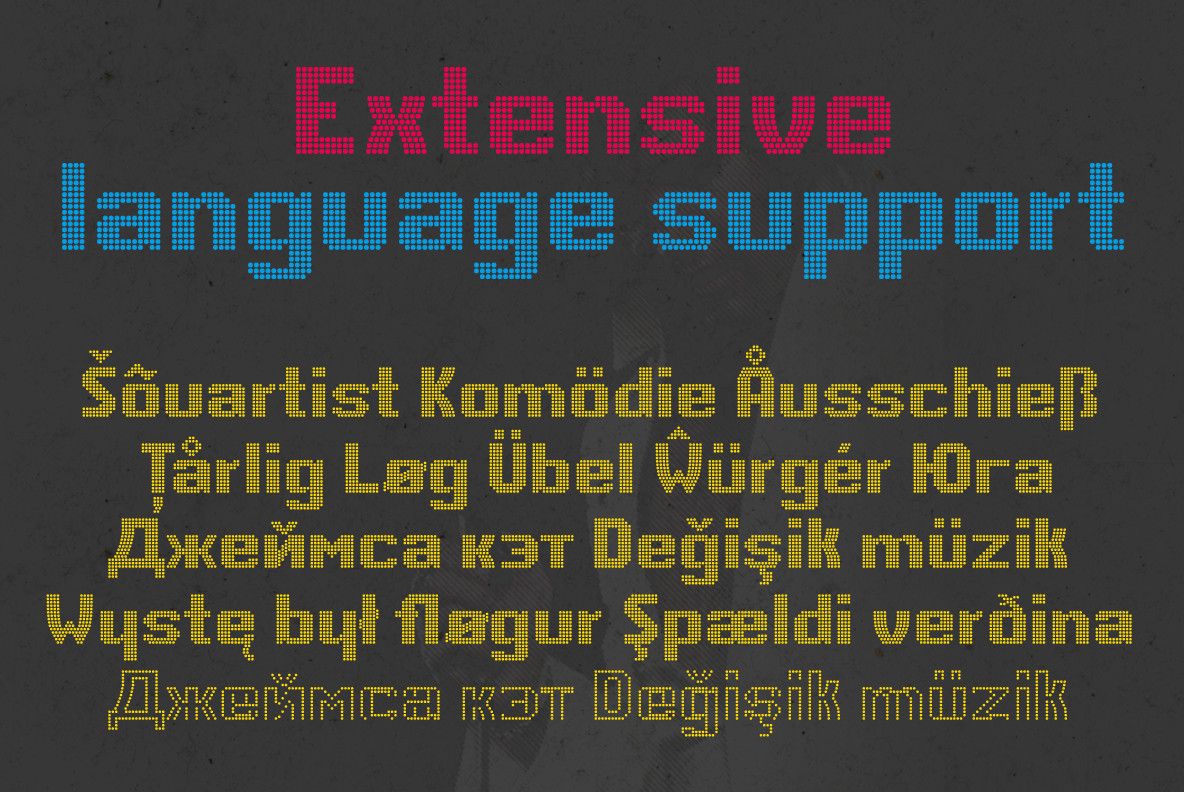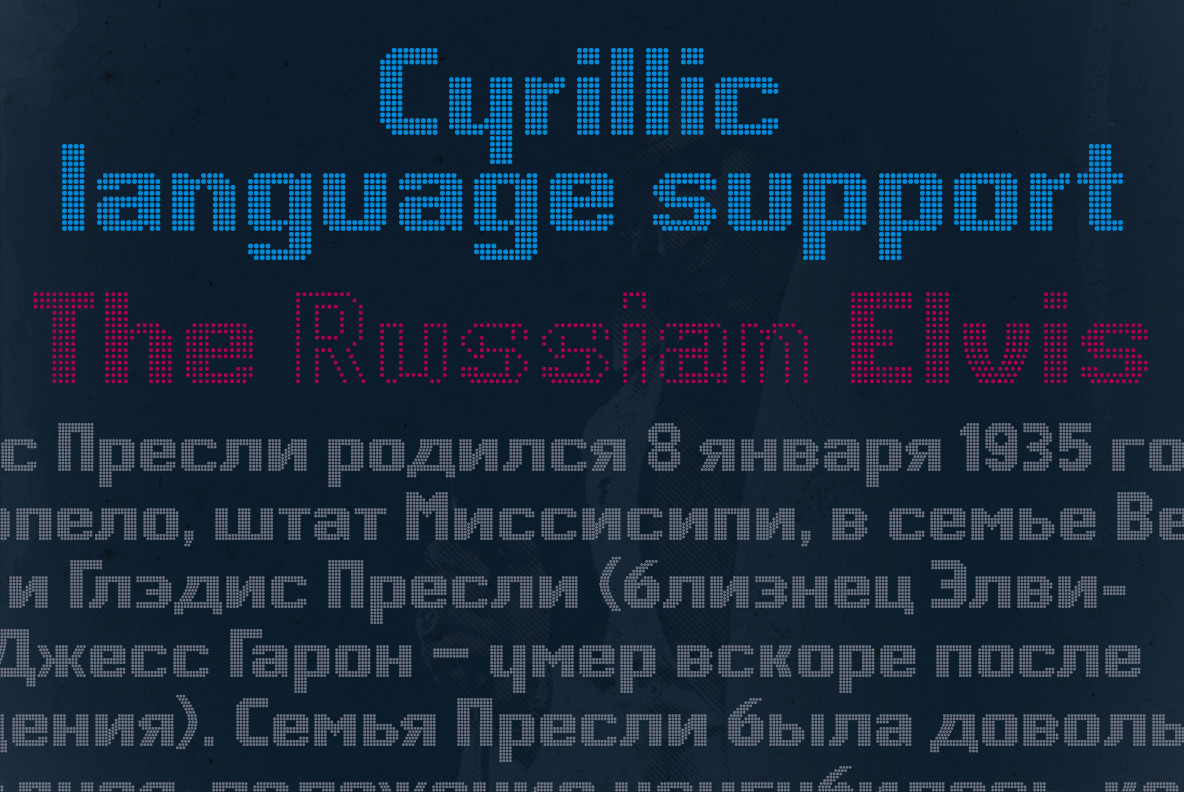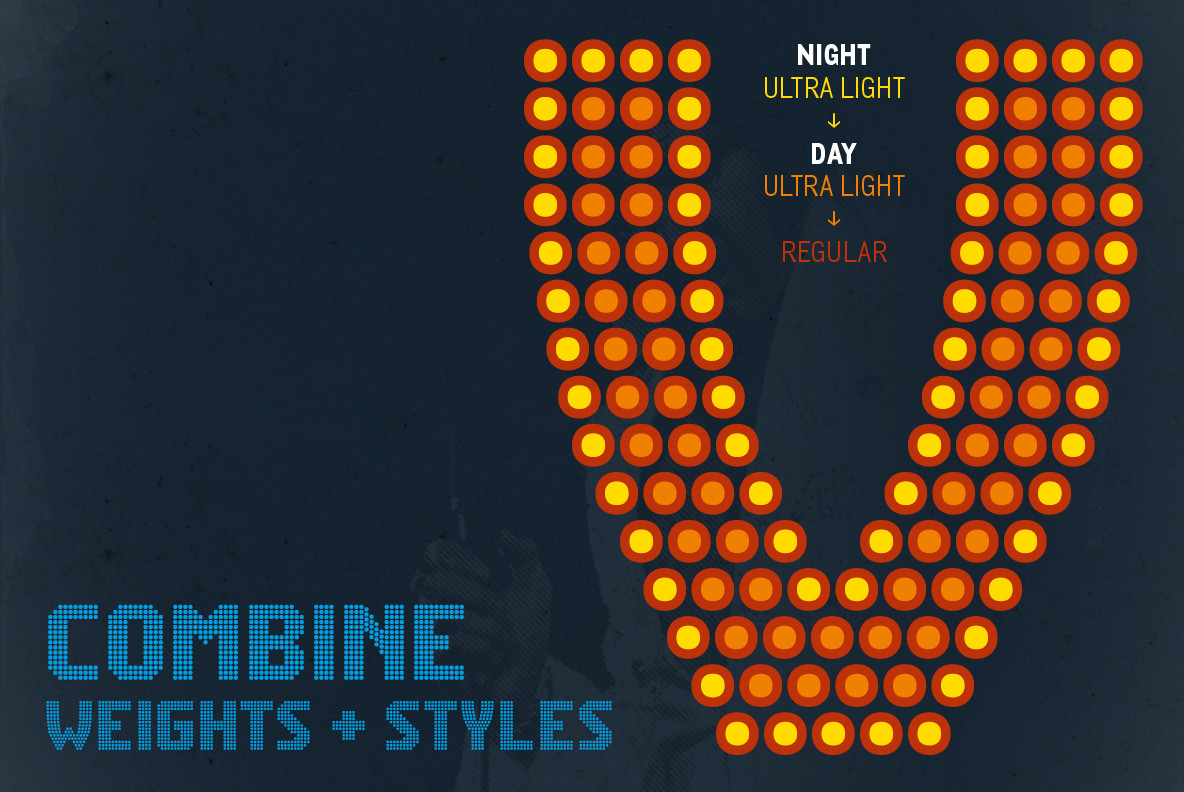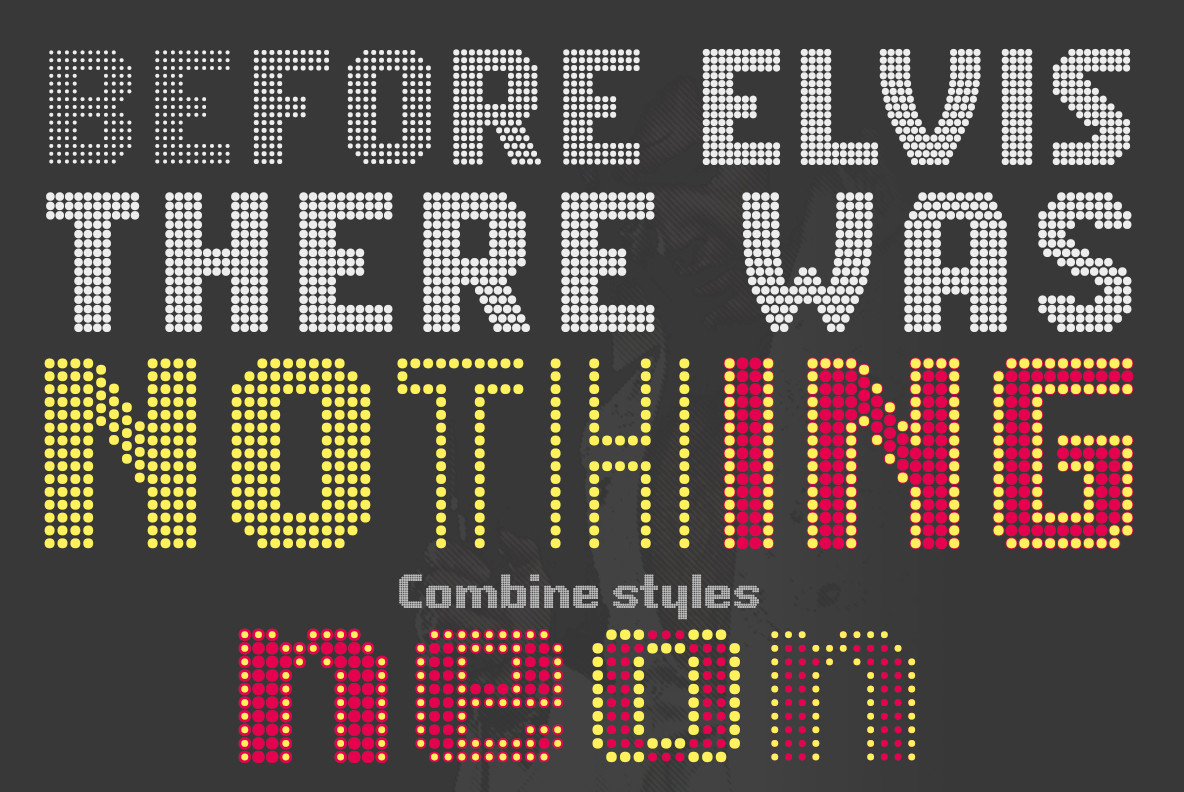
CA Viva Las Vegas Font
CA Viva Las Vegas is a fine light bulb font inspired by signage of concert halls of the 70s when Elvis was playing in Las Vegas.
Two different styles (NIGHT and DAY) and 4 weights (Ultra Light, Thin, Light, Regular) based on a layered system give endless design possibilities by using combinations of fonts and colors.
CA Viva Las Vegas has got an extensive character-set including Russian Cyrillic plus the Turkish Lira sign. It’s best used in big font sizes.